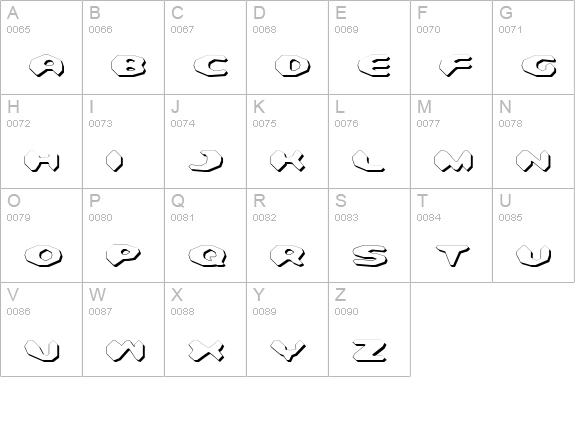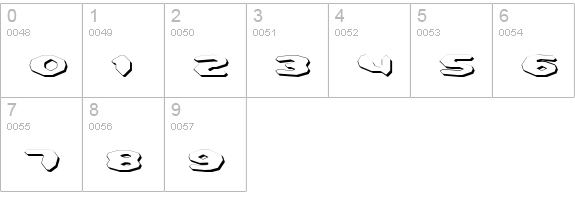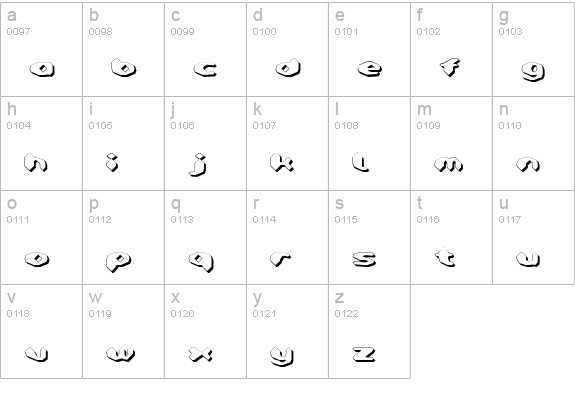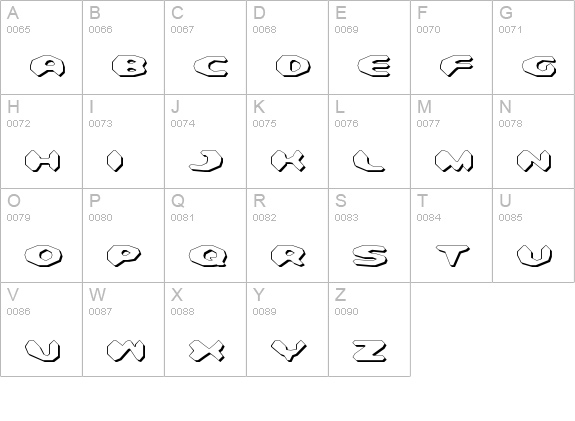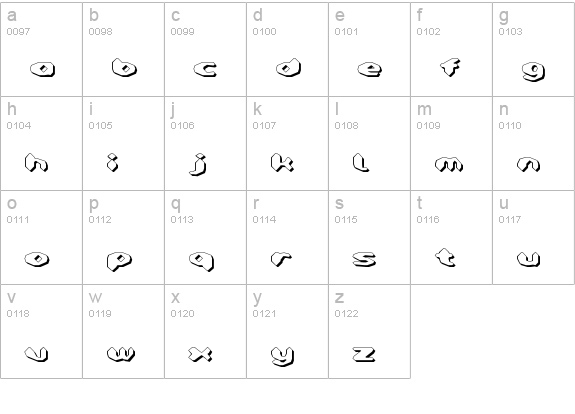
Detonator Shadow Font Details
Detonator Shadow font is a dynamic and explosive typeface that commands attention with its bold and striking appearance. The sharp edges and shadow effect of this font give it a sense of depth and dimension, making it perfect for adding a touch of drama to your designs. Whether you're creating posters, logos, or headlines, Detonator Shadow will ensure that your text stands out in style. And the best part? Detonator Shadow font is available for free download at FontsMarket.com! Simply head over to the website to grab this fantastic font and unleash its power in your projects. Don't miss out on the opportunity to add a touch of dynamism to your designs with Detonator Shadow font – download it today and let your creativity explode!